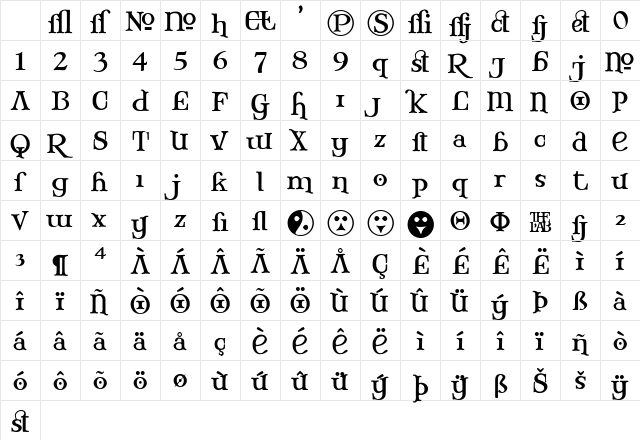
Mary Jane Alternate Regular
Designer: Apostrophe
Design Context for Mary Jane Alternate
Mary Jane Alternate is a composed and adaptable typeface that performs quietly and consistently across a wide range of design contexts.